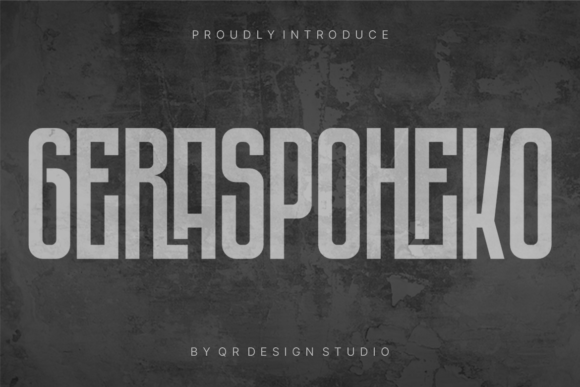
The Perfect Typography to Elevate Your Designs
Have you ever found yourself stuck in a creative rut, searching for the perfect font to elevate your design? It’s a frustrating feeling, especially when you’re working on a project that requires a bold statement. But what if I told you that there’s a font out there that’s specifically designed to make a lasting impression? Say hello to the Geraspoheko Font, a display font that’s guaranteed to take your designs to the next level.
This font is a game-changer for designers, offering a unique blend of style and versatility that’s perfect for branding projects, logos, sports, and more. Whether you’re working on a high-energy campaign or a sophisticated brand identity, the Geraspoheko Font is the perfect companion to help you achieve your vision.
Geraspoheko Font Key Features
- Font Family: Geraspoheko, a unique and stylish sans-serif font.
- Unique Characteristics: The font features a distinctive geometric shape, with clean lines and precise edges, making it suitable for modern and minimalist designs.
Geraspoheko Font Review
Overall, I found the Geraspoheko font to be an interesting addition to the design world. It’s definitely a unique choice, and it can add a lot of character to certain projects. ✨
- The font’s bold, expressive lines really make it stand out. It’s great for titles, headings, and other high-impact text.
- The font’s irregularities add a lot of personality to the design. It’s not for everyone, but it’s perfect for those who want to make a statement.
- The font’s bold weight is particularly well-suited for digital applications, where a clear and legible font is essential.
- The font’s irregularities can also be a major drawback. It can be difficult to read, especially in large blocks of text. ⚠️
- The font may not be suitable for all projects. It’s a bold, attention-grabbing font, which may not be the best choice for projects that require subtlety.
- The font’s limited character set may also be a limitation for some designers.
Overall, I think the Geraspoheko font is a great choice for designers who want to add some personality to their projects. However, it may not be the best choice for every project, and it’s essential to weigh its limitations carefully before making a decision.
Tips for Getting the Most Out of Geraspoheko Font
Here are some tips to help you get the most out of Geraspoheko Font:
- Use Geraspoheko Font for titles and headings to add a touch of elegance.
- Combine Geraspoheko Font with other fonts to create a unique and eye-catching design.
Geraspoheko Font is perfect for:
- High-end marketing materials.
Alternatives to Geraspoheko Font
Great Vibes is a modern, elegant script font perfect for creating a sophisticated and luxurious feel. It is ideal for use in branding, advertising, and editorial designs where a high-end look is desired.
Comparison to Geraspoheko Font: Great Vibes has a more refined and polished appearance, making it suitable for formal and high-end designs. Geraspoheko Font, on the other hand, has a more playful and casual feel.
Carolyna Pro is a modern, sans-serif font with a clean and minimalist aesthetic. It is perfect for use in digital designs, such as websites, apps, and social media platforms, where a clean and simple look is desired.
Comparison to Geraspoheko Font: Carolyna Pro has a more modern and tech-savvy feel, making it suitable for digital designs. Geraspoheko Font has a more classic and timeless appearance.
Dancing Script is a elegant and flowing script font perfect for creating a whimsical and creative feel. It is ideal for use in branding, advertising, and editorial designs where a playful and artistic look is desired.
Comparison to Geraspoheko Font: Dancing Script has a more playful and artistic appearance, making it suitable for designs that require a touch of whimsy. Geraspoheko Font has a more balanced and versatile feel.